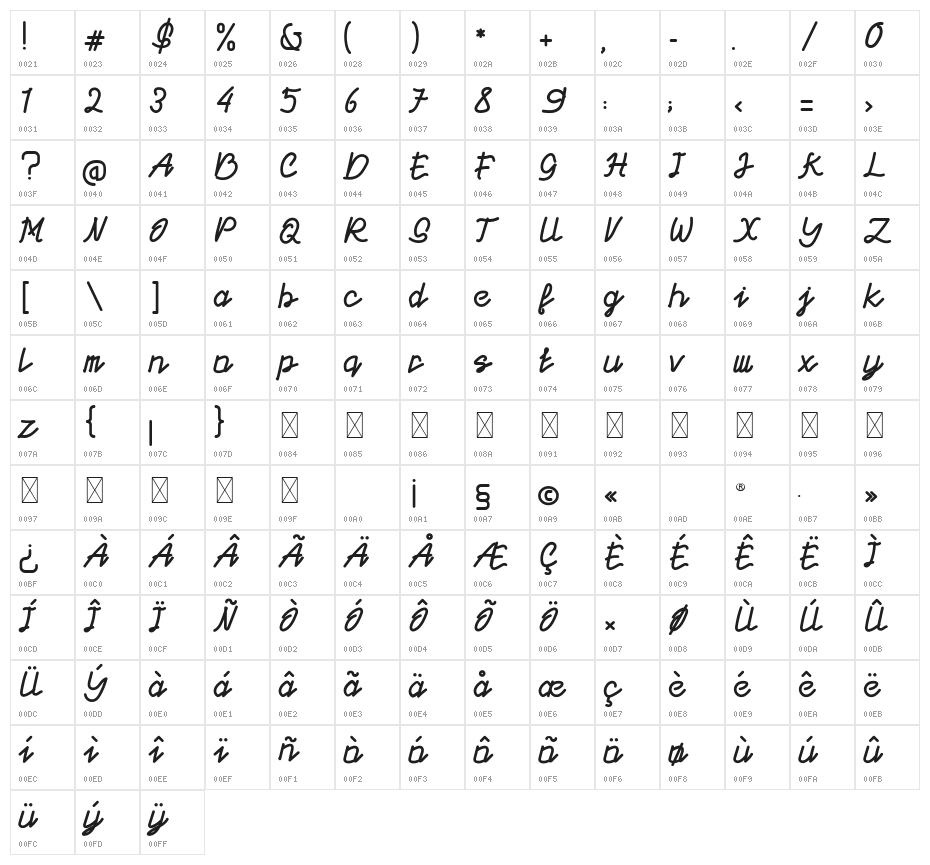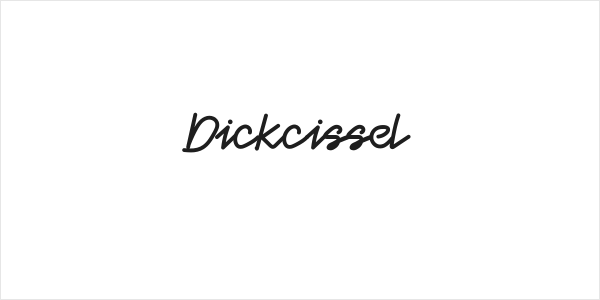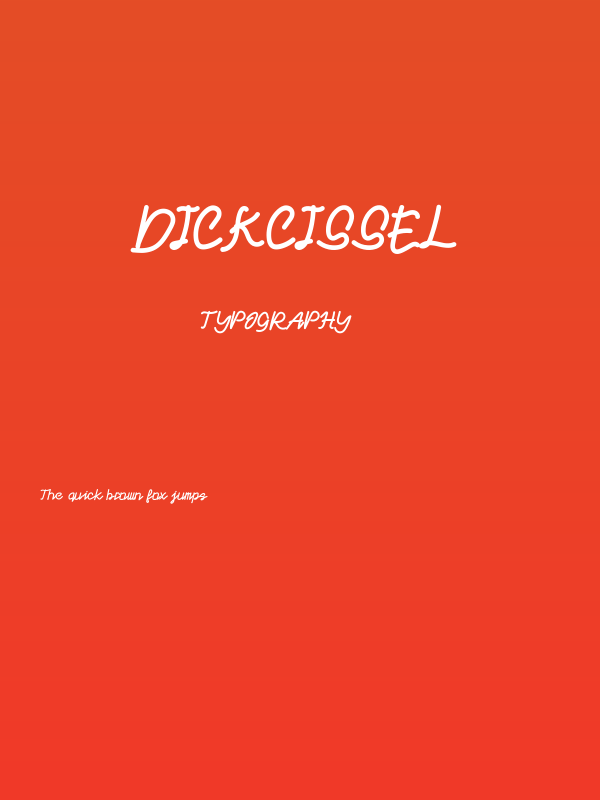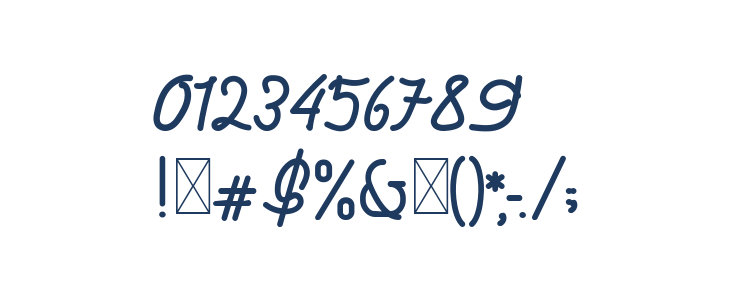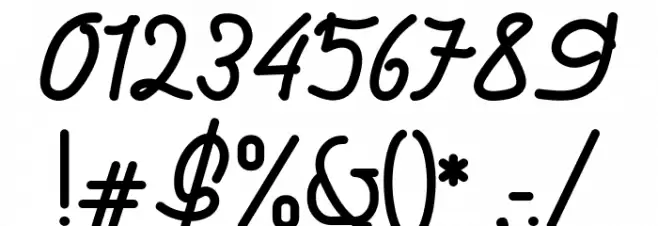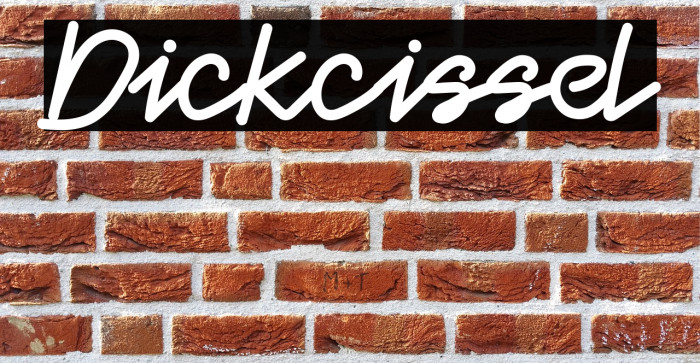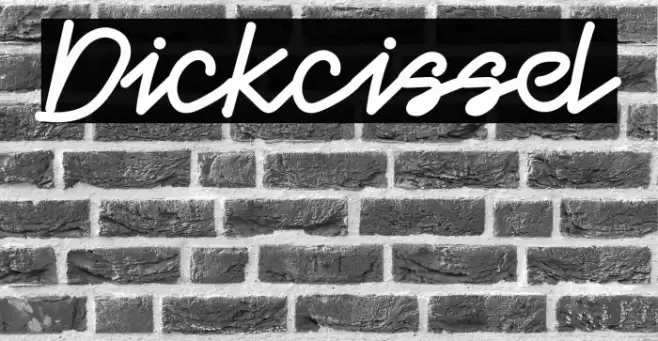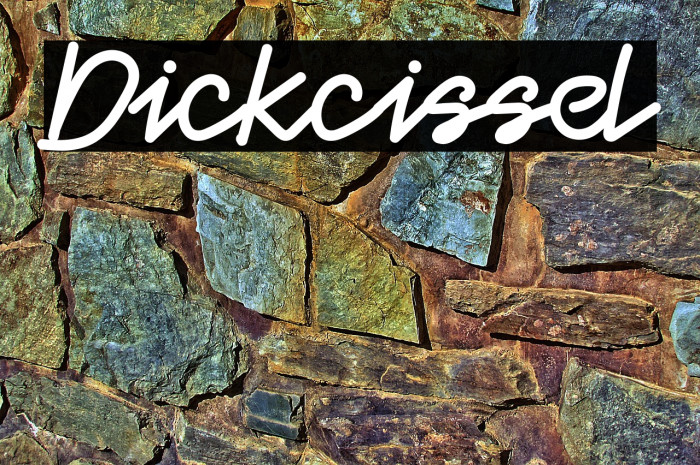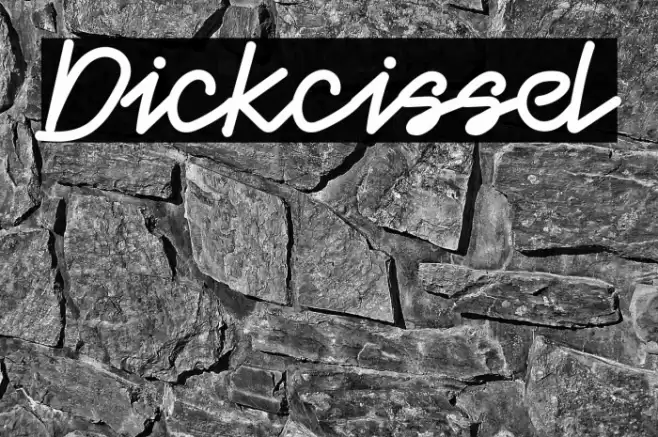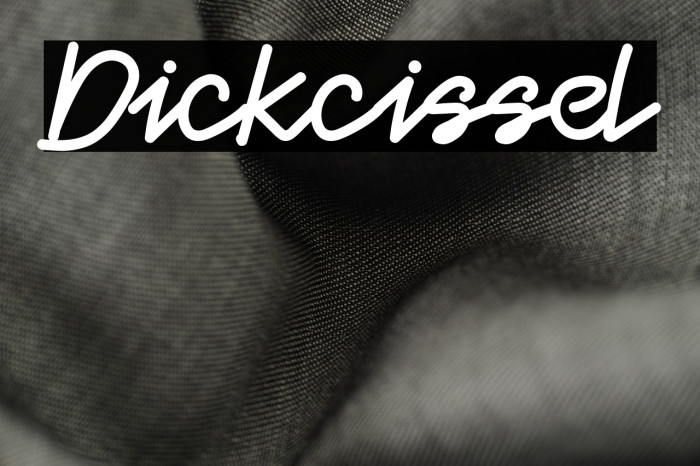
Dickcissel Font
Dickcissel Description
This font showcases a lively and dynamic script style, characterized by its fluid and connected letterforms. The uppercase letters exhibit a playful yet elegant flair, with smooth curves and a slight slant that adds a sense of motion. The lowercase letters maintain a consistent flow, enhancing readability while preserving the font's energetic personality. Numbers and special characters are designed to complement the overall style, ensuring versatility across various applications. The font's bold strokes and medium contrast make it suitable for eye-catching designs.